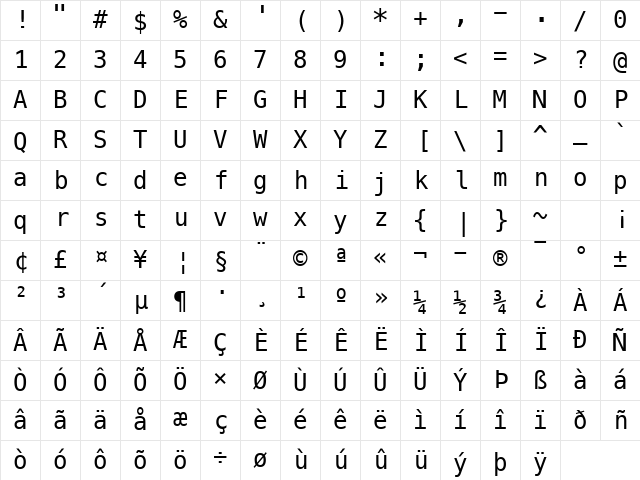
Complete MesloLGMDZ Nerd Font Regular glyph index. Displaying only characters natively supported by MesloLGMDZ Nerd Font Regular font.
MesloLGMDZ Nerd Font is a composed and adaptable typeface that performs quietly and consistently across a wide range of design contexts.